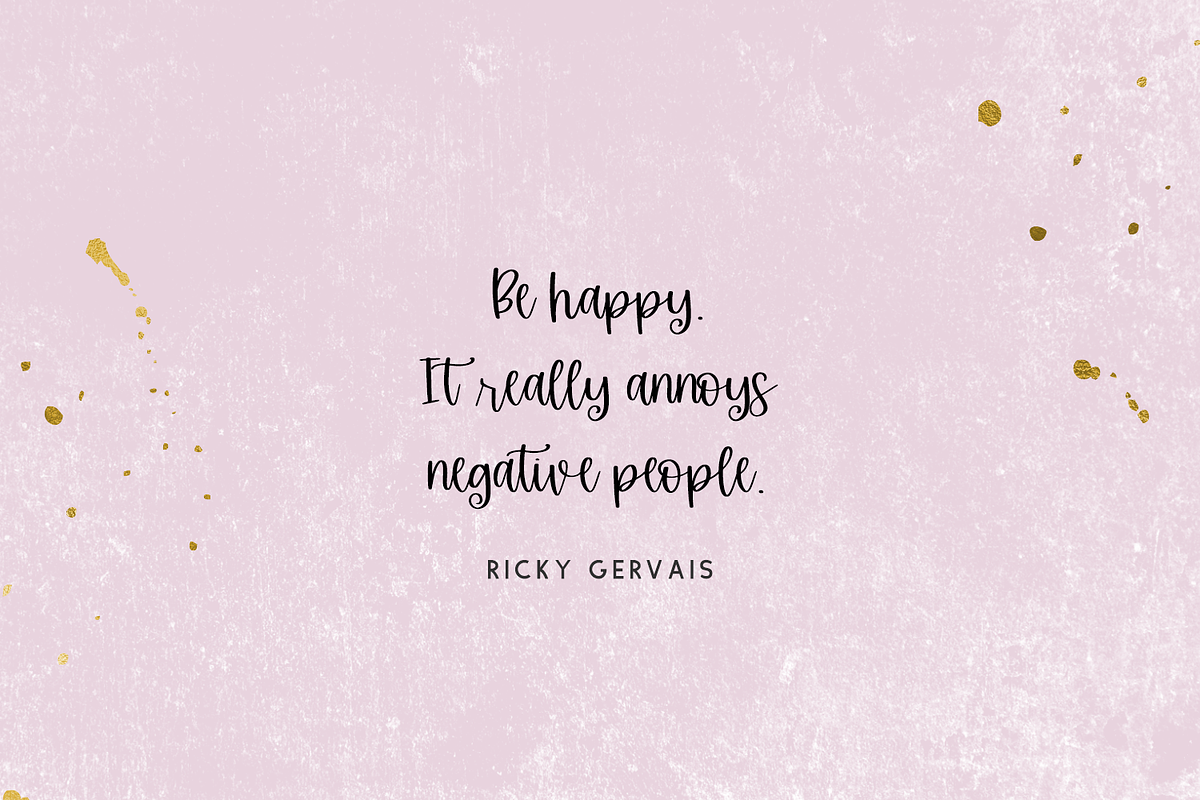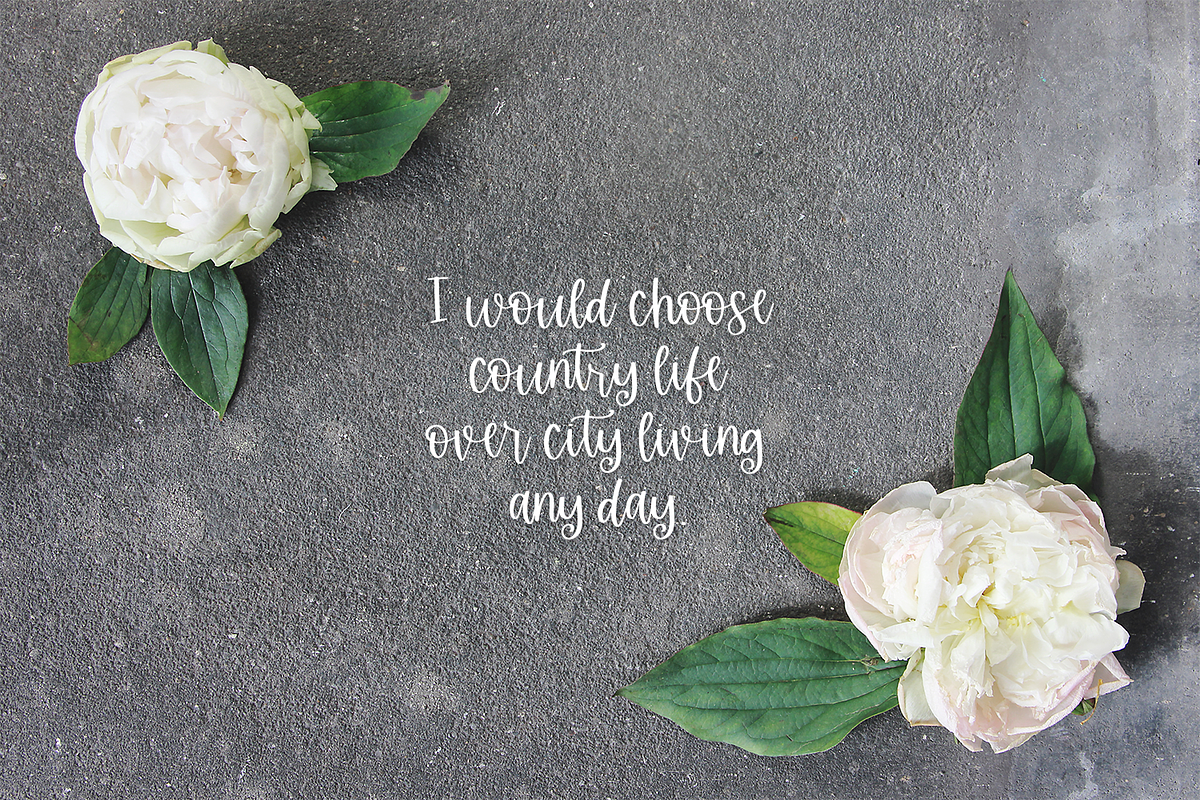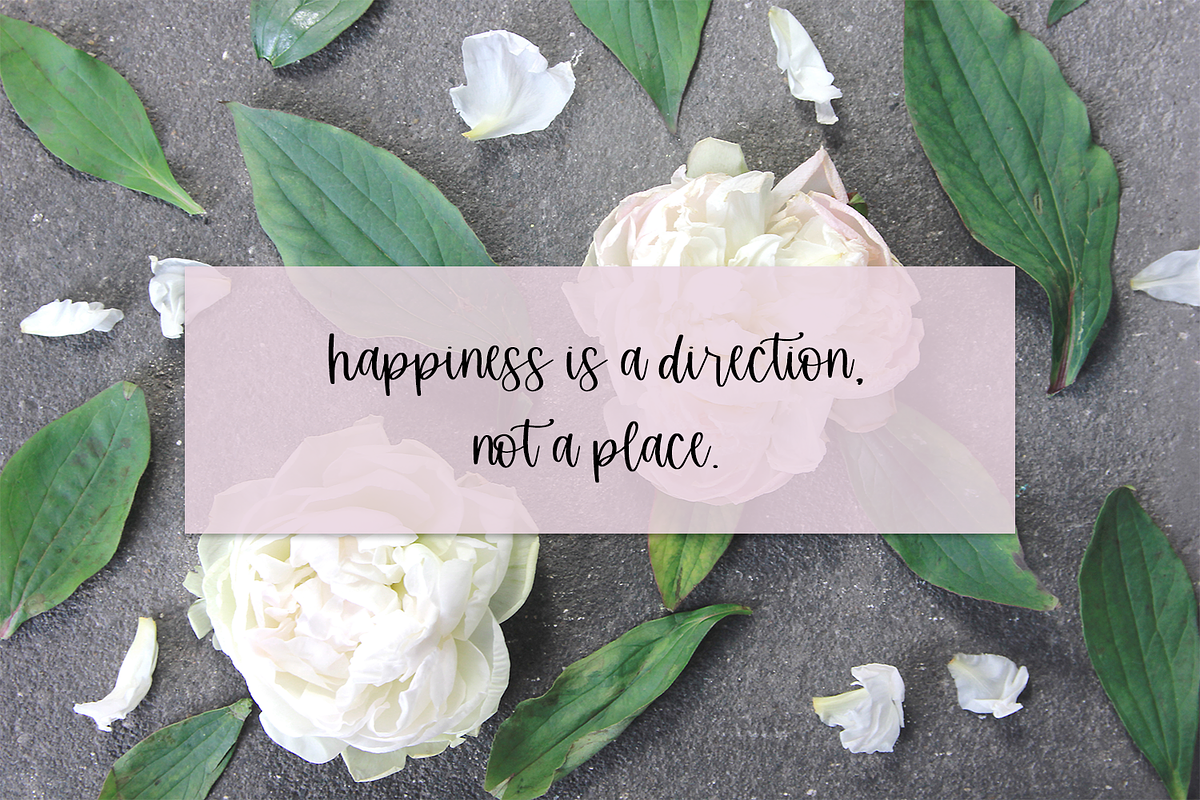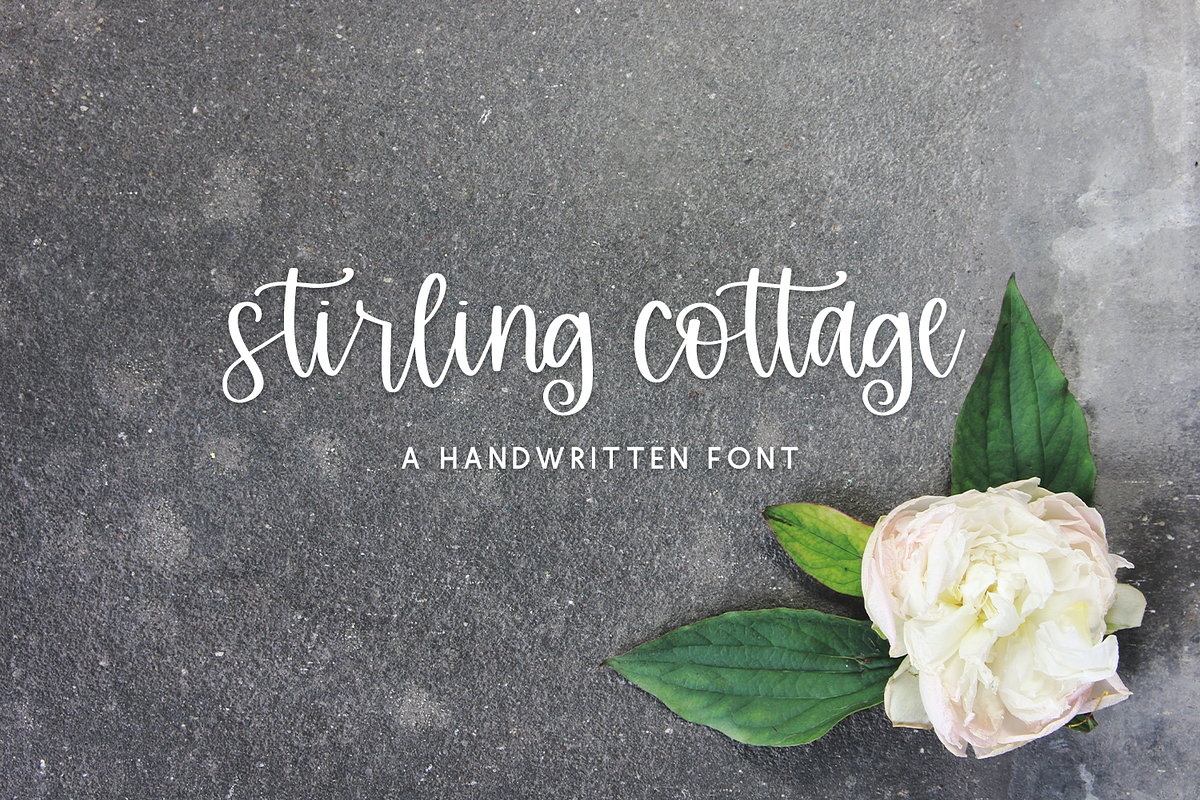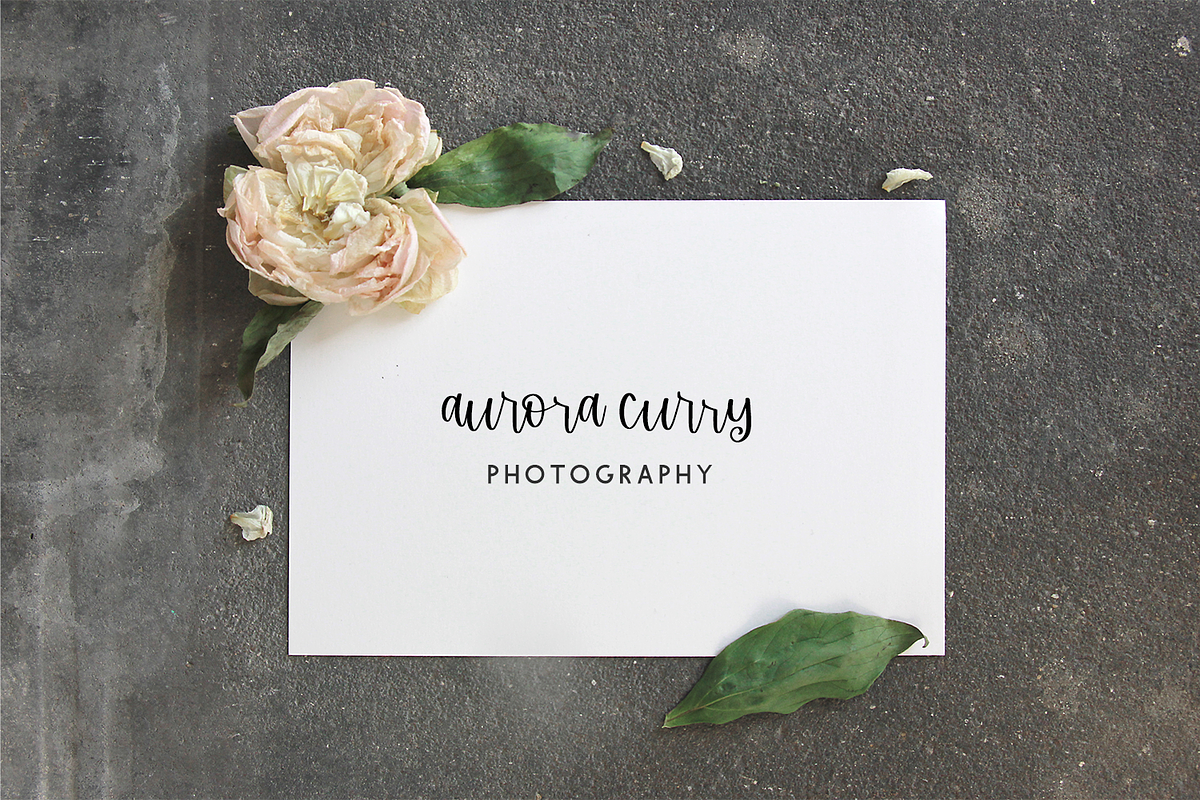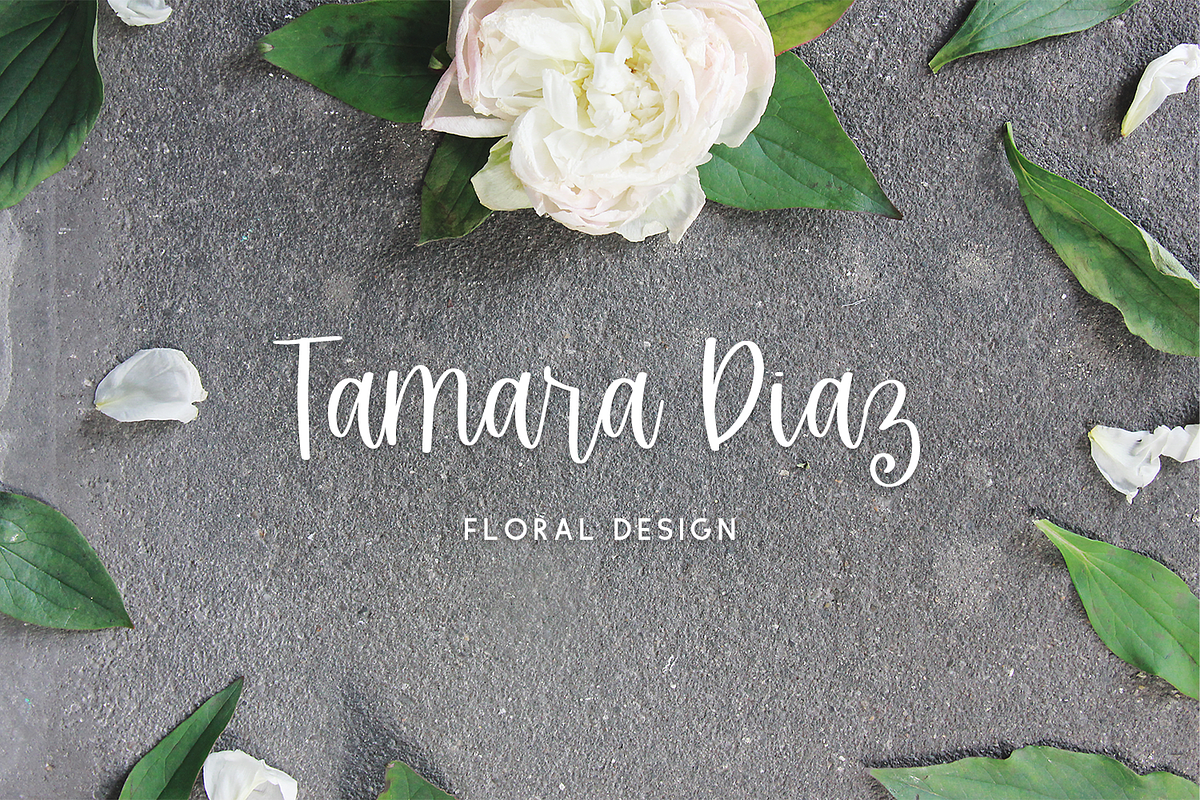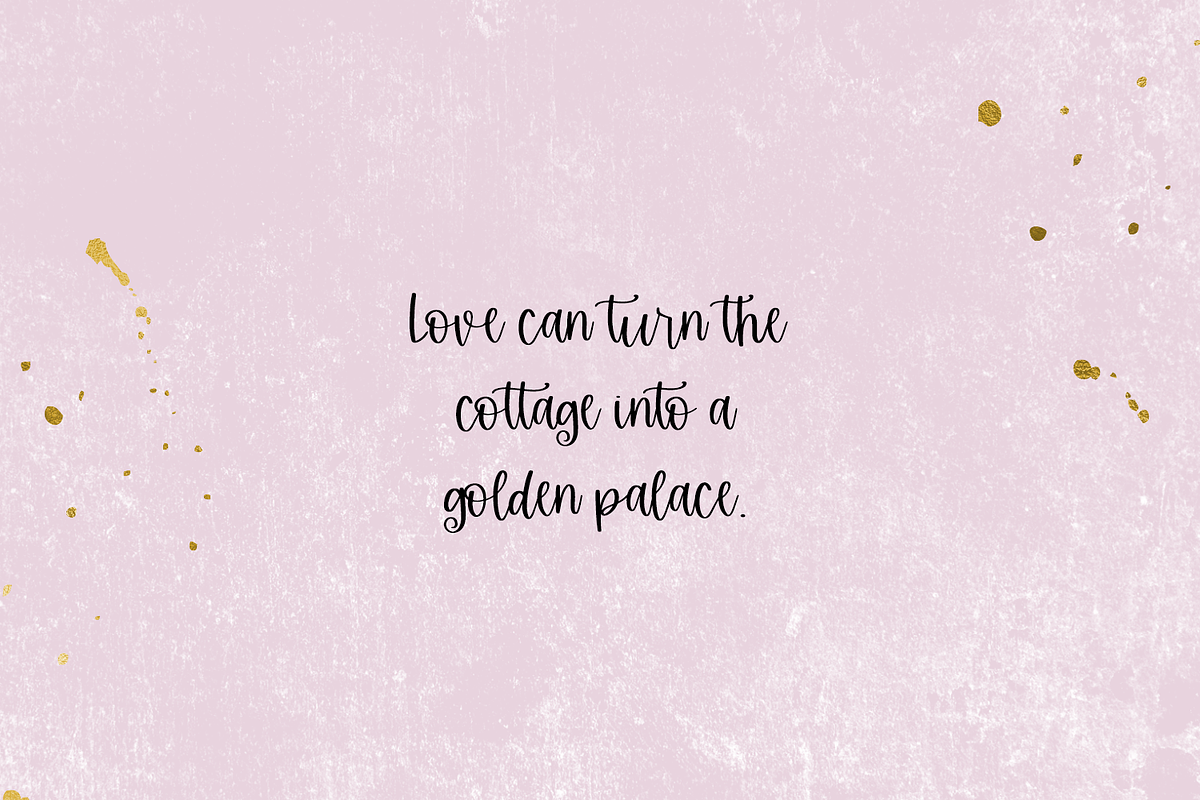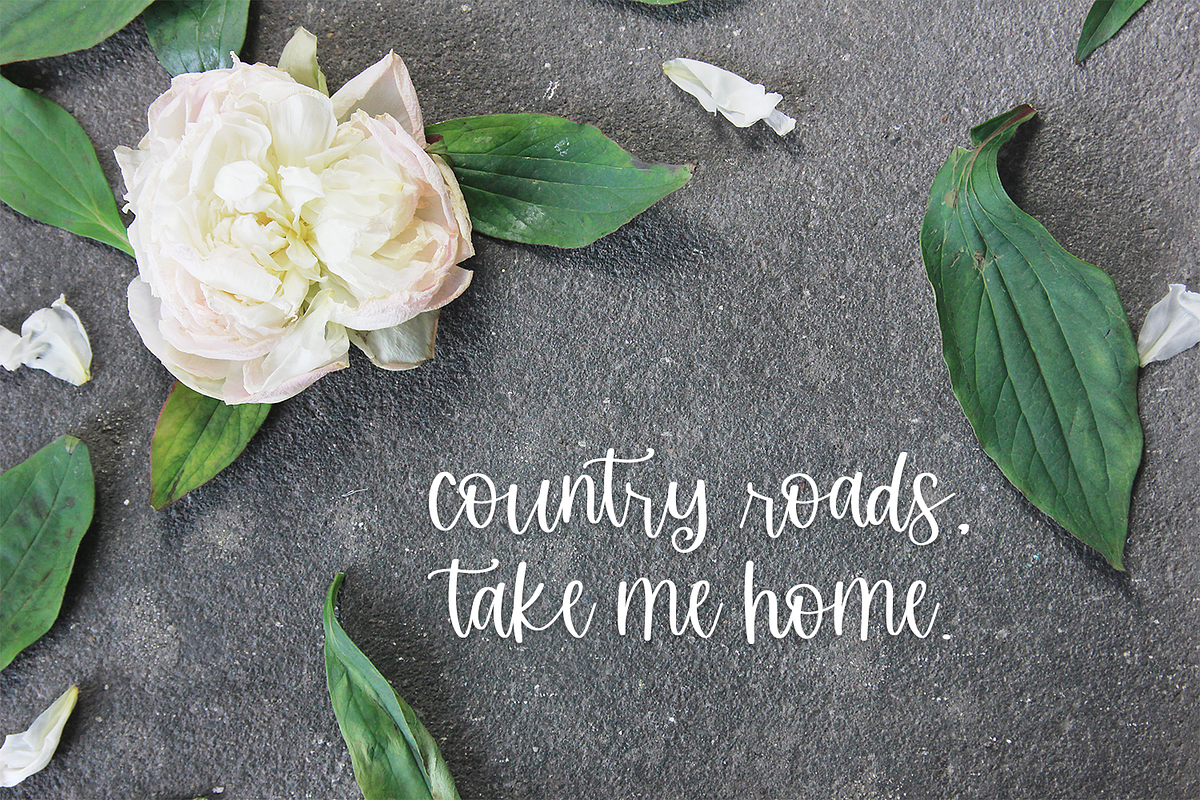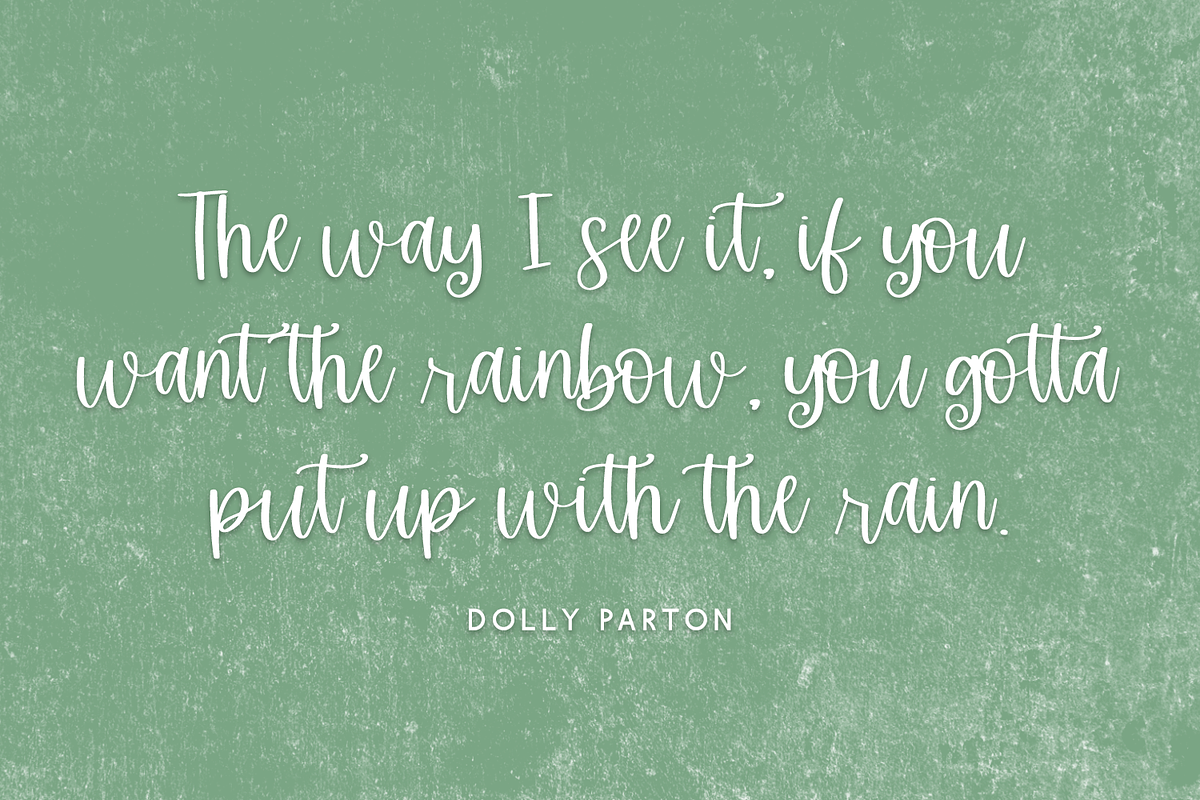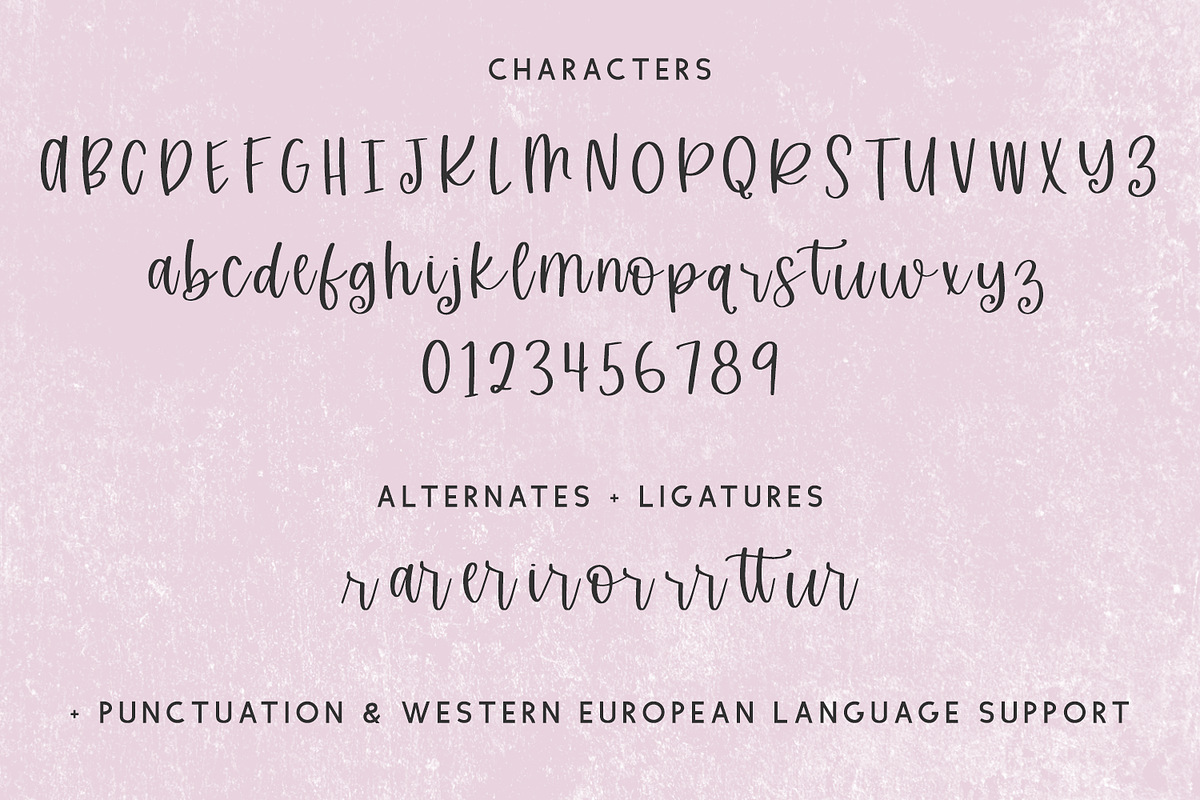
Stirling Cottage Script
Introducing Stirling Cottage Script, a handlettered calligraphy script with the slightest bit of bounce.
Stirling Cottage Script is best for:
- logos + branding for feminine or kid-centric brands
- header elements that need a cute handwritten touch
- quote graphics for social media
- crafting with Cricut or Silhouette machines, since it has a super smooth edge for cutting vinyl!
Stirling Cottage Script includes:
- full upper + lowercase characters
- numbers + punctuation
- r in initial form & 7 ligatures - ar, er, ir, or, rr, tt, ur
- Western European Language Support
- PUA-encoding